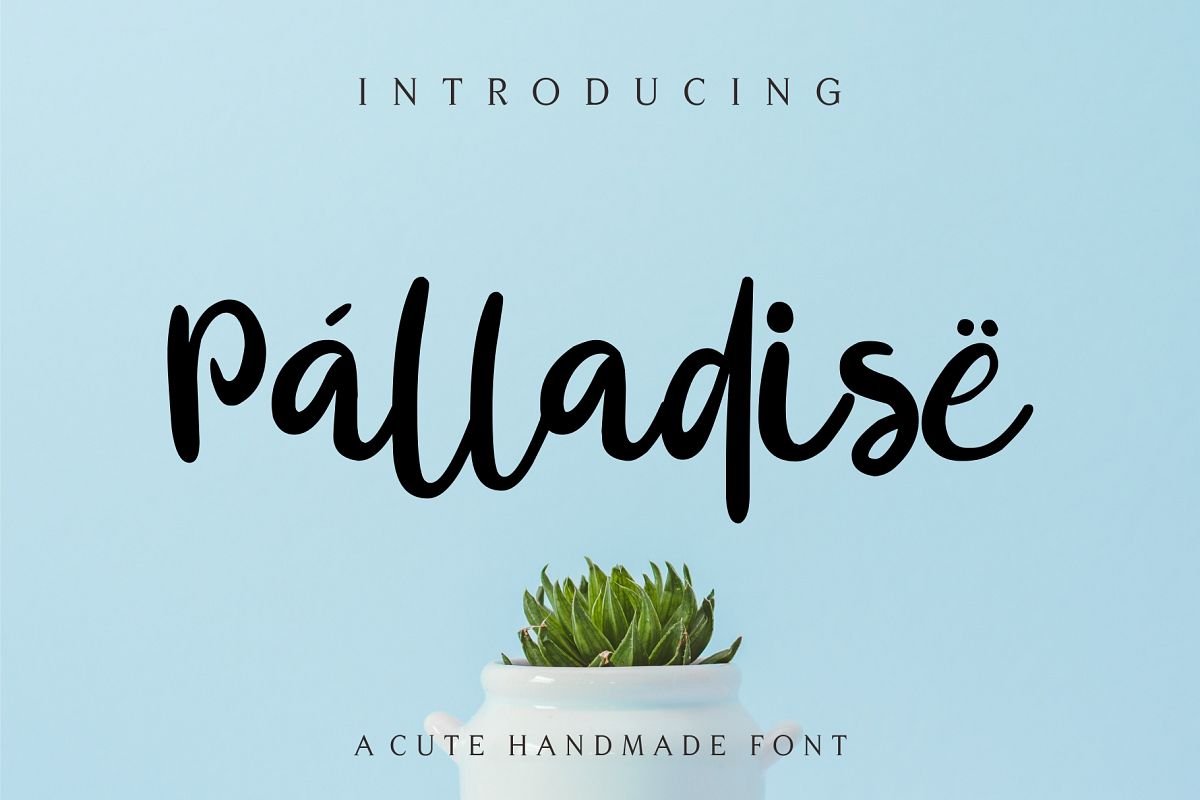
Palladise Cute Font
Palladise is an amazing and authentic handwritten font with a unique twist. It is designed to turn any design project into a lovely eye-catcher.